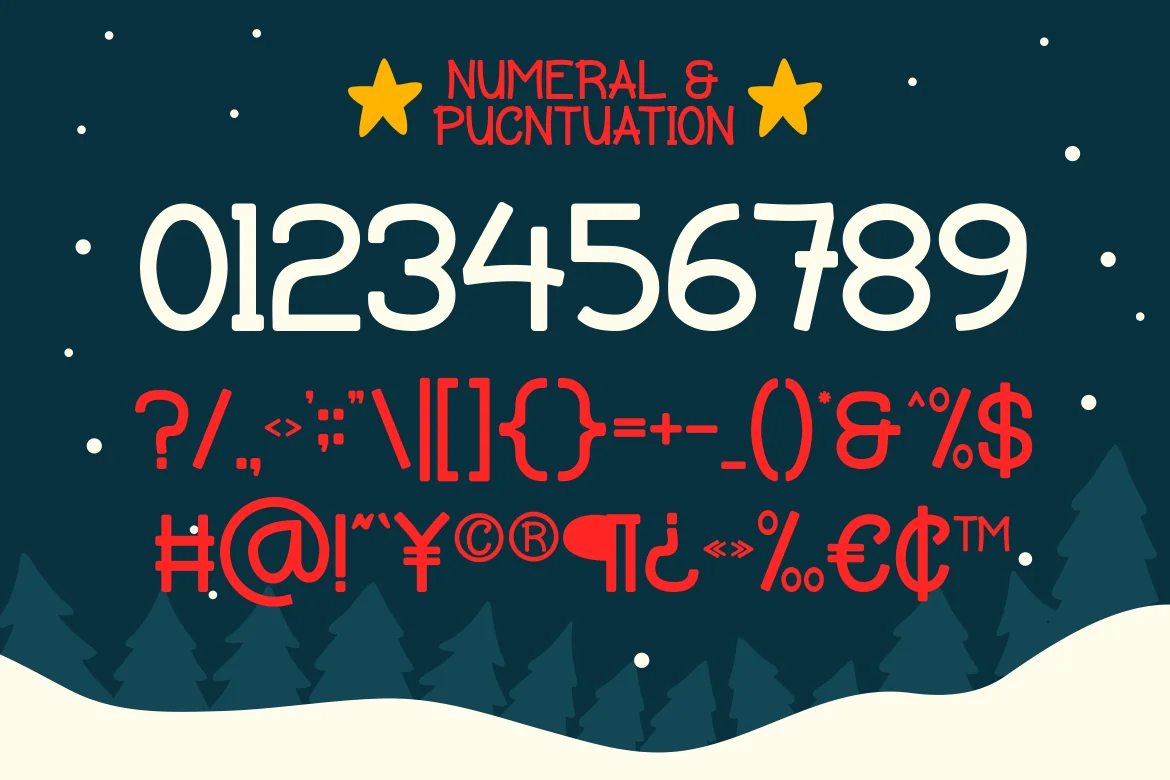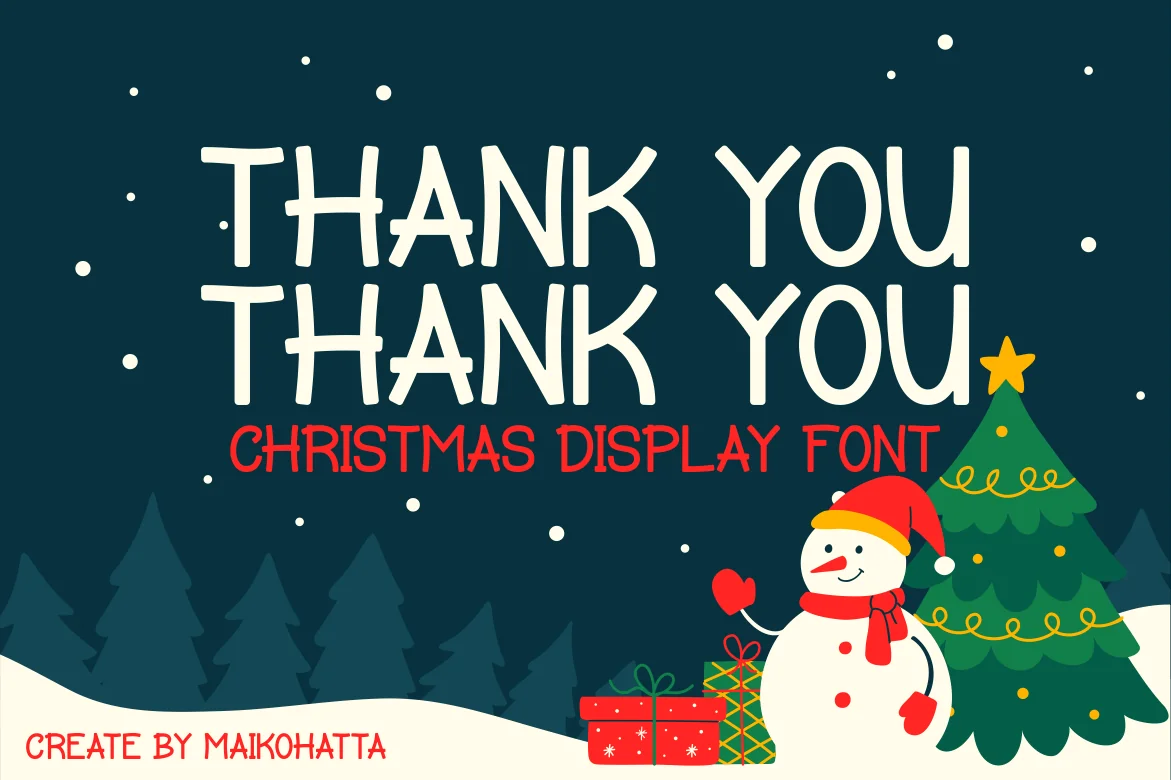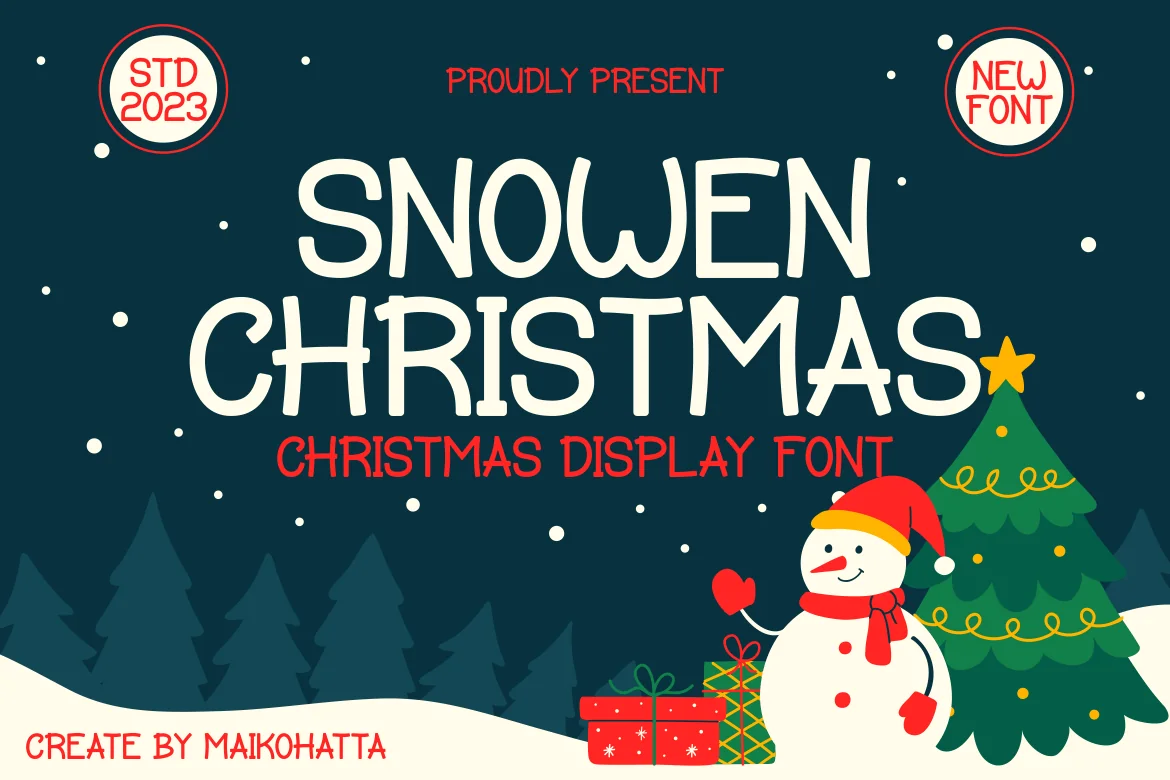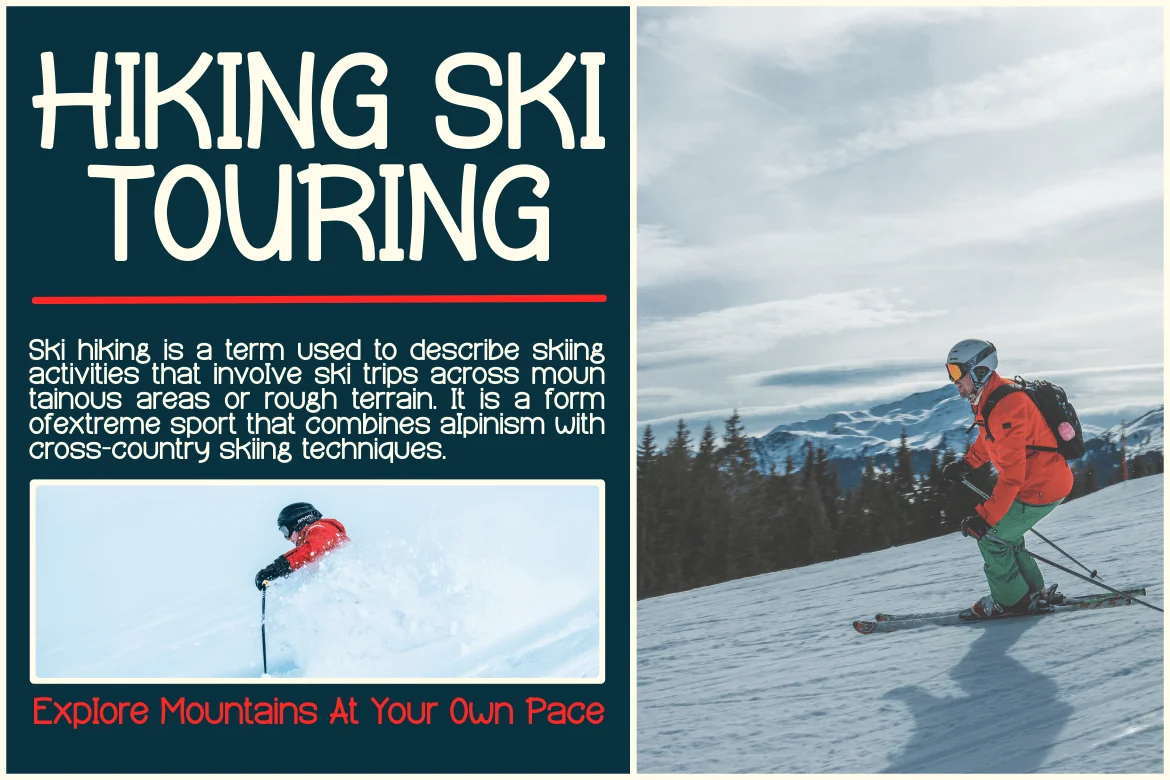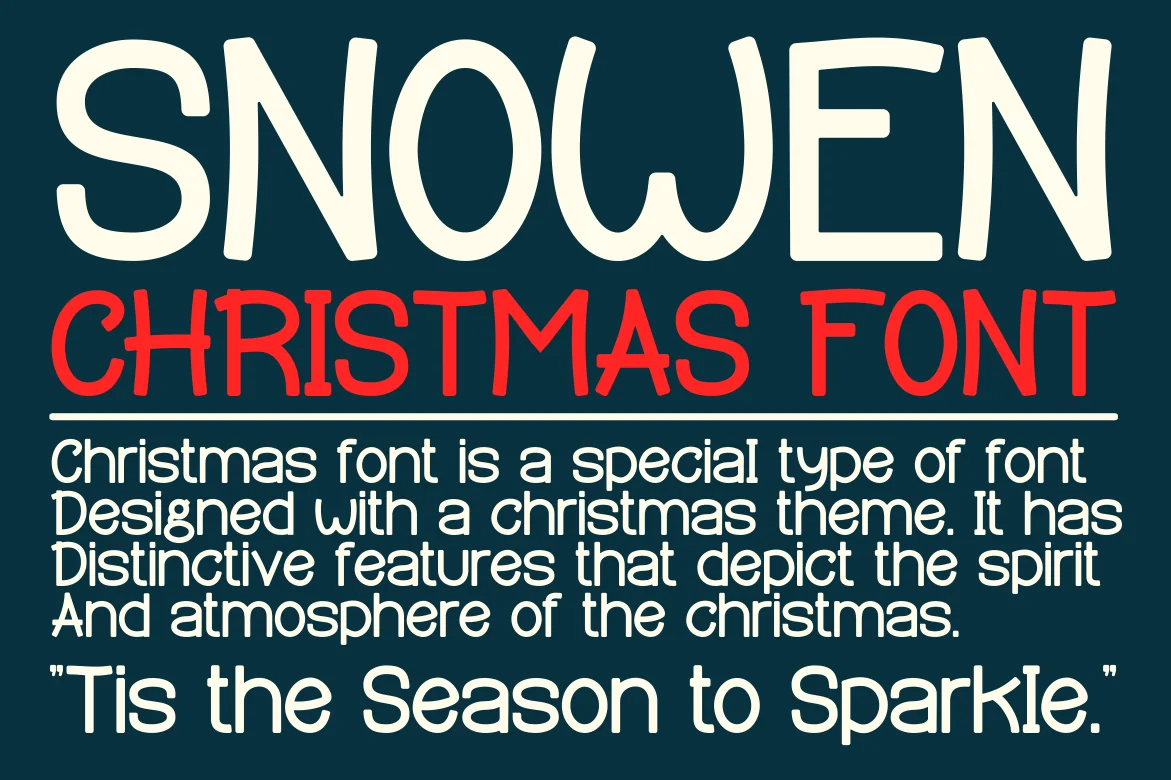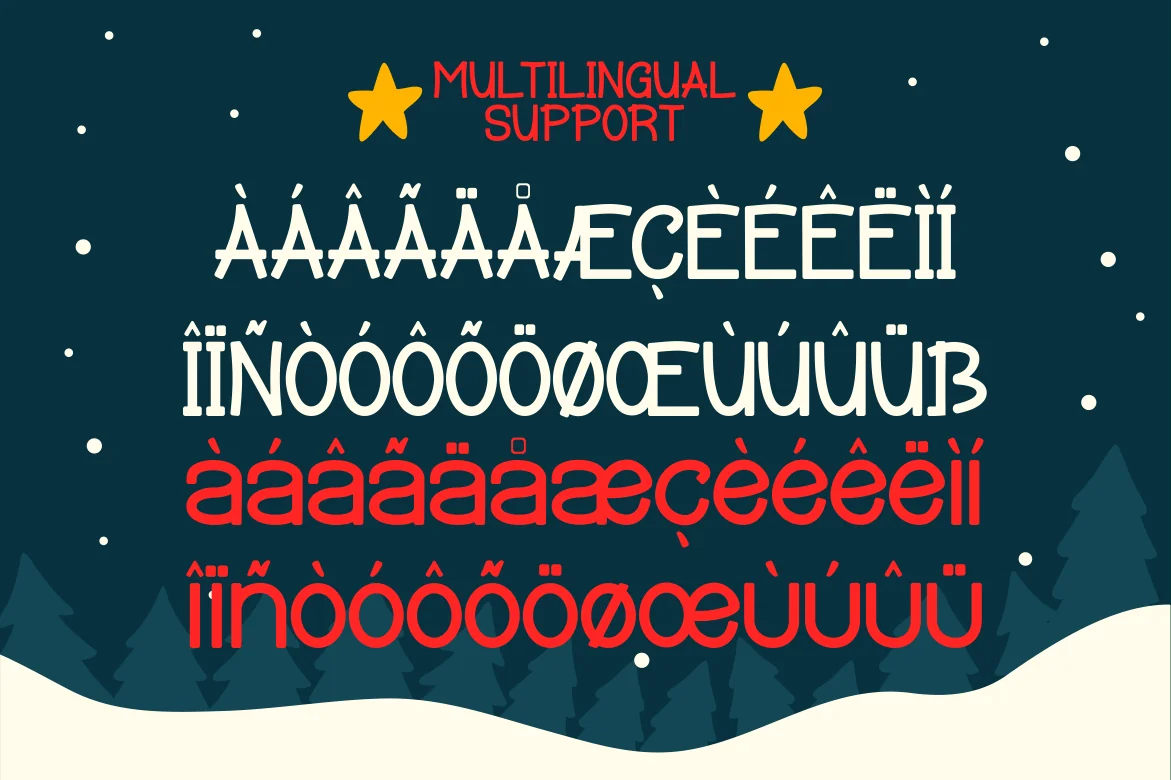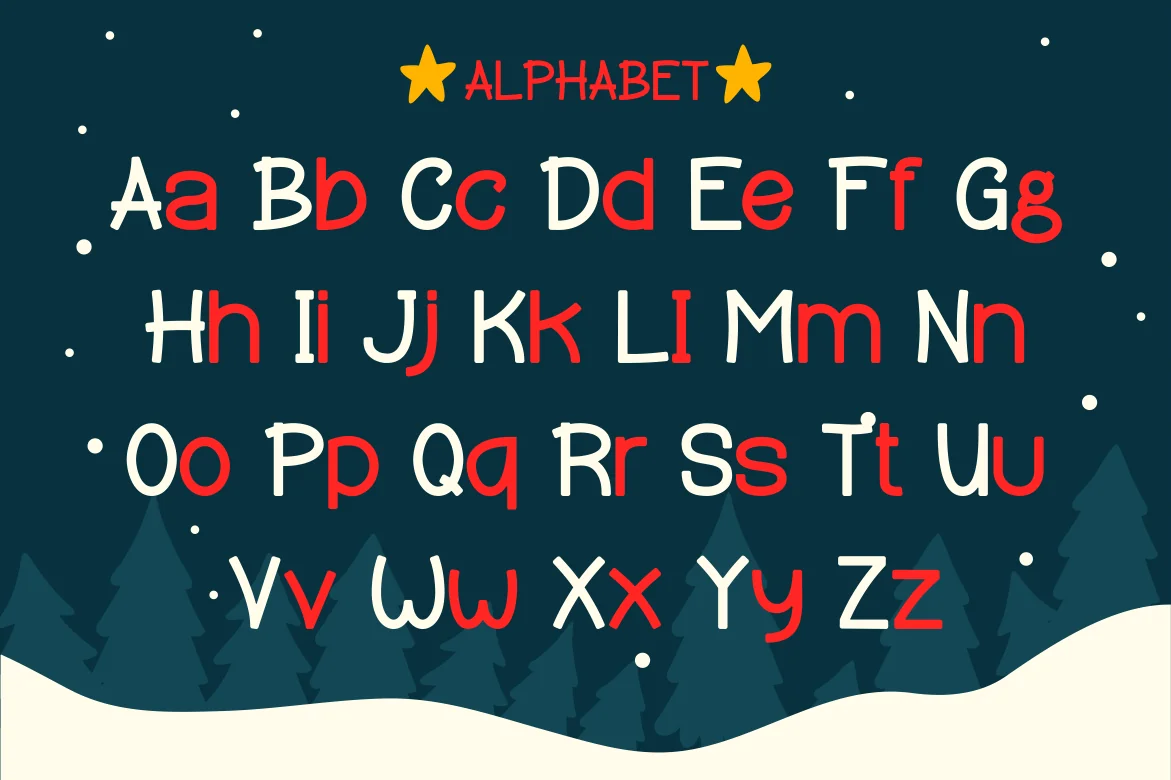
Snowen Christmas – Christmas Display Font
Introducing our new product Snowen Christmas – Christmas Display Font
This font is specifically designed to create a Christmas atmosphere and mood. It is often used in graphic design, greeting cards, posters, and various other visual elements related to the celebration of Christmas.